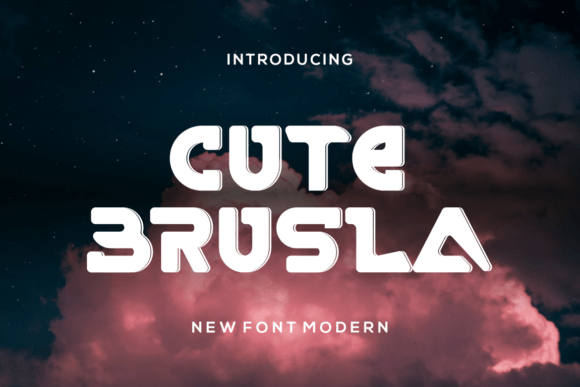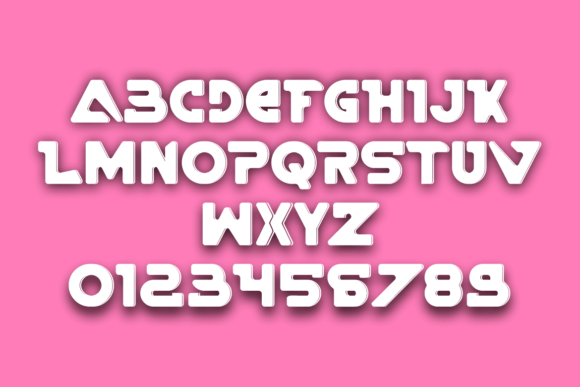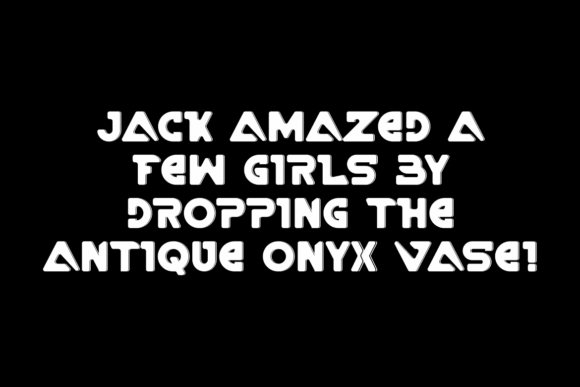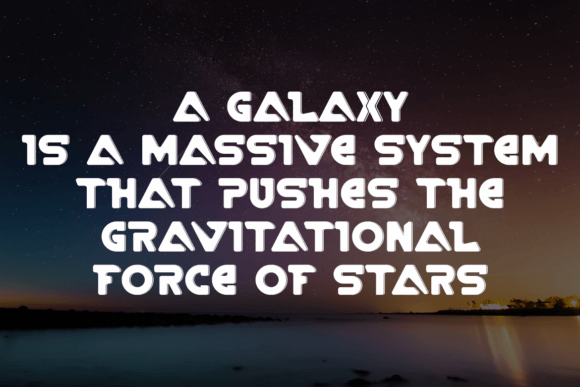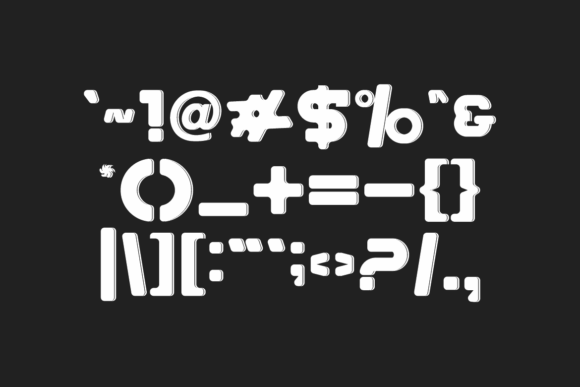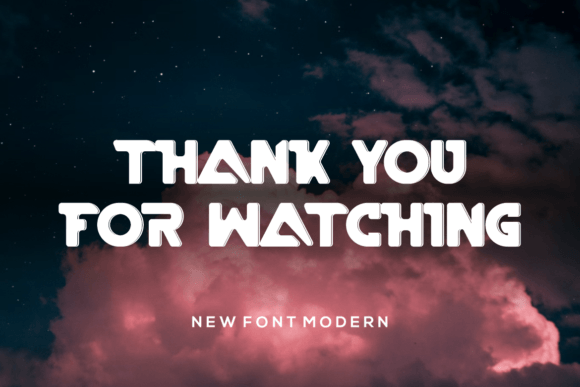
Introduction to Cutebrusla Font
Cutebrusla is a fun and friendly display font.
Full of personality and charm, this font is perfect for a wide spectrum of applications .
Key Features of Cutebrusla Font